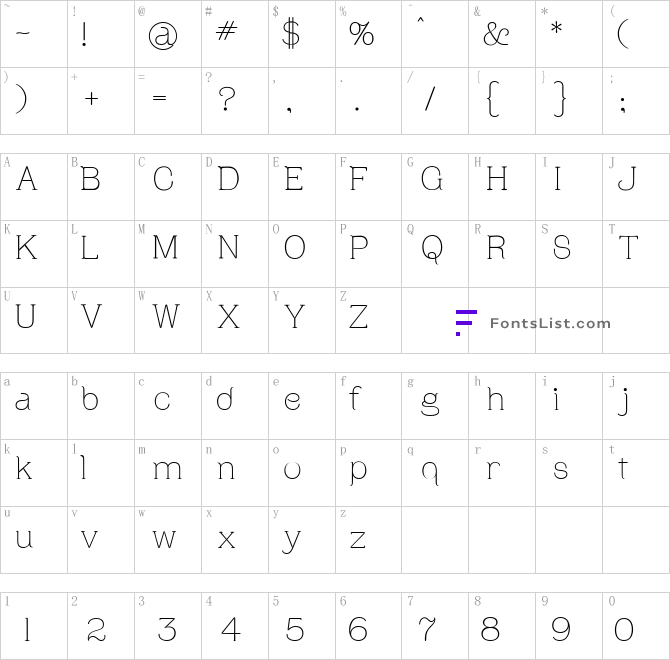
- Font Name:Apple Tree
Apple-Tree.ttf is a very beautiful artistic font, Apple-Tree.ttf is widely used in the design and printing of various books and pictures,Apple-Tree.ttf has a strong visual impact,Apple-Tree.ttf is a commonly used font in newspapers, magazines and books, and is used in posters, e-commerce Poster design, store design, logo design, font design and other fields.Apple-Tree.